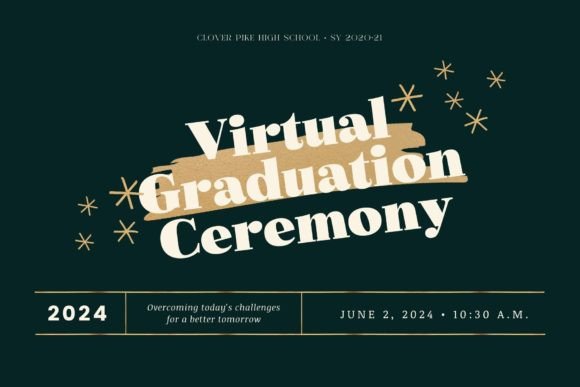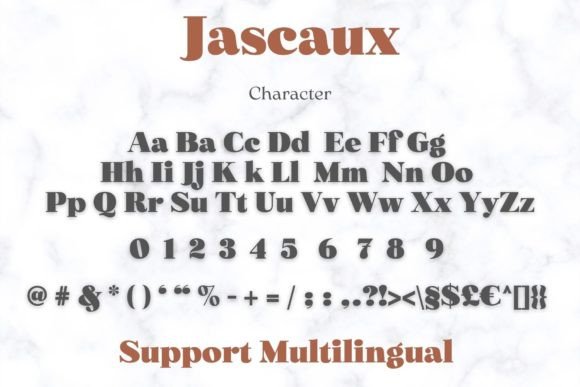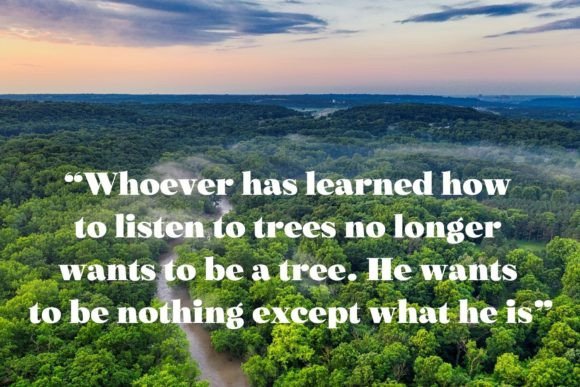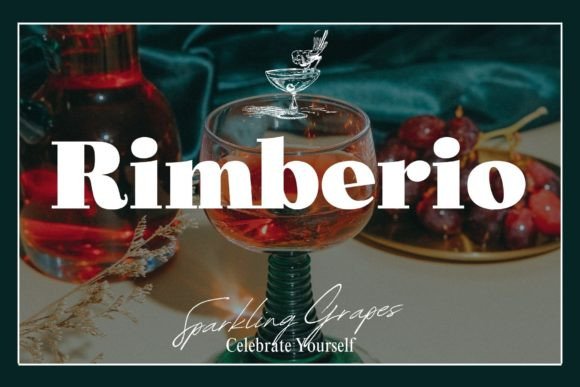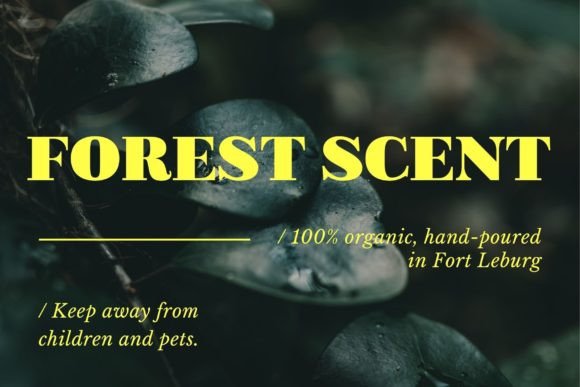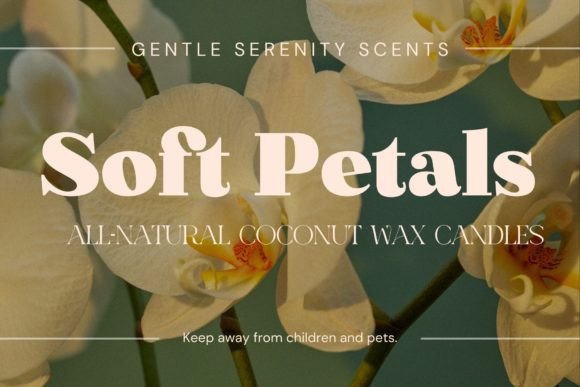
Introduction to Jascaux Font Font
Fonts play a crucial role in design, and the Jascaux Font font is a typeface that brings both character and versatility to any project. Whether you’re working on a branding project, a website, or a print design, the Jascaux Font font offers a unique style that can elevate your work.
| 📌 Font Name | Jascaux Font |
| 👤 Author | nickbeuahr |
Jascaux Introducing, is a serif typeface crafted with elegance and luxury, exuding femininity and glamor but also a side of beauty with plenty of alternatives and ties to help you create endless variations for your creative needs.
Its striking contrasts and subtle details, along with luxurious strokes and voluptuous curves, create a beautiful and powerful statement for any typographic composition, blending glamor with contemporary aesthetics The Jascaux elegant serifs really help you create unlimited variations for your creative needs in creating your project titles: such as fashion, magazines, logos, branding, photography, invitations, wedding invitations, quotes, blog headers, posters, advertisements, postcards, books, websites, etc.
Key Features of Jascaux Font Font
Why Choose Jascaux Font Font?
The Jascaux Font font is more than just a typeface – it’s a design tool that helps you communicate your message with style and clarity. Its unique character set and versatile design make it suitable for a wide range of applications, from elegant invitations to bold headlines.
With its carefully crafted letterforms and balanced proportions, the Jascaux Font font ensures readability and visual appeal across all mediums.
What makes Jascaux Font font special?
The Jascaux Font font stands out with its unique design, exceptional readability, and versatility across various design applications.